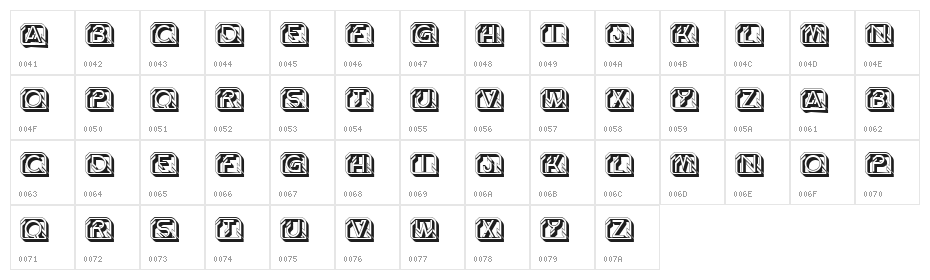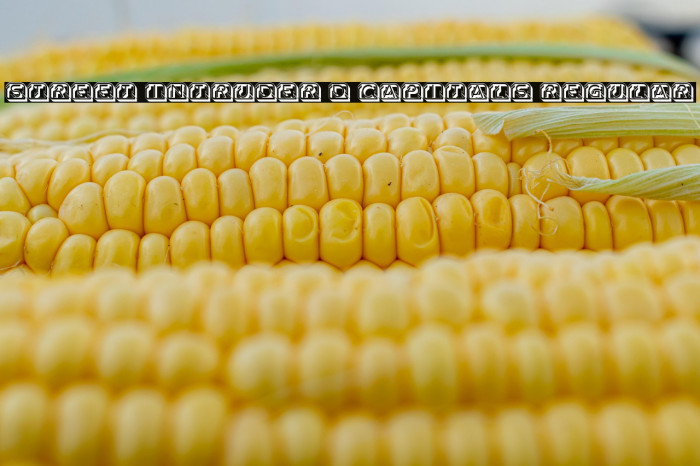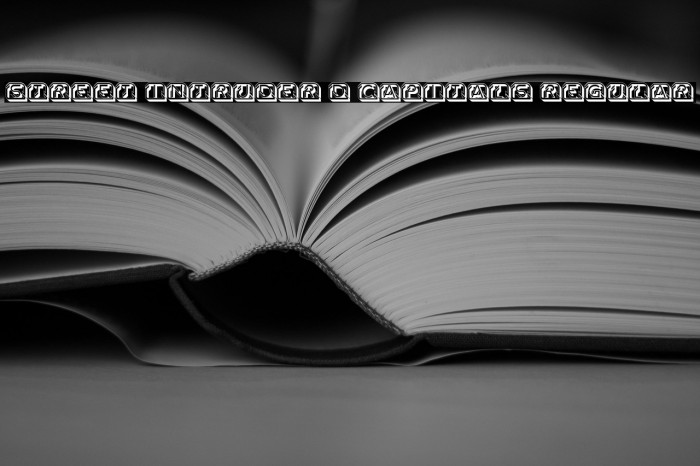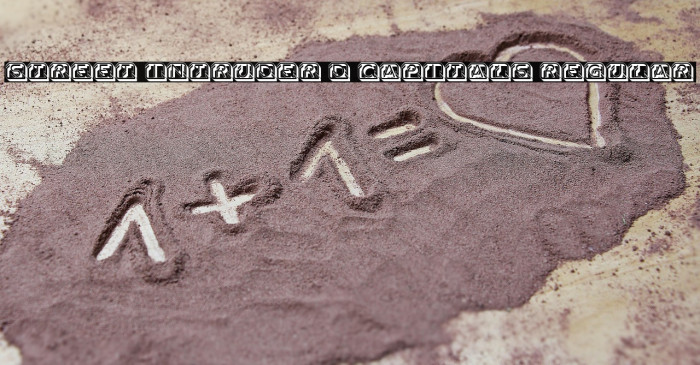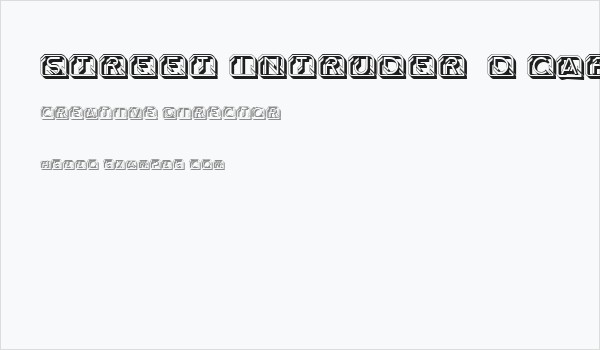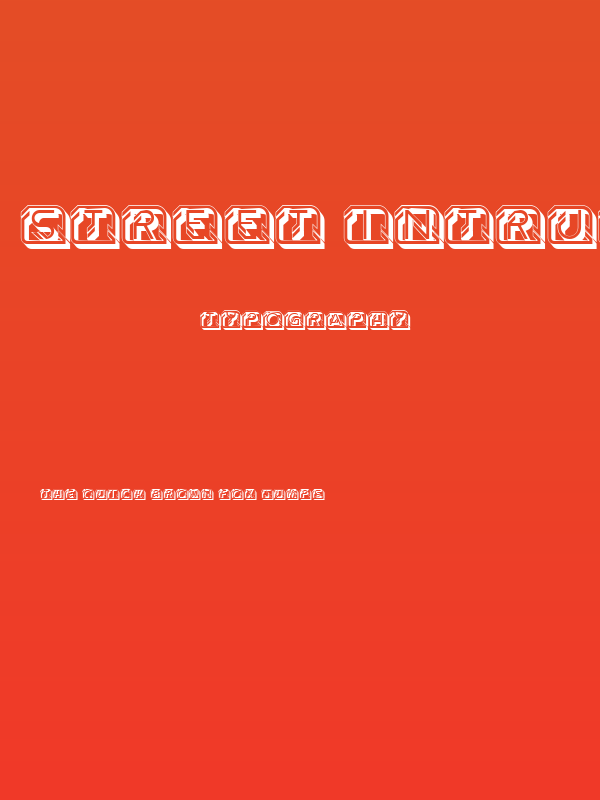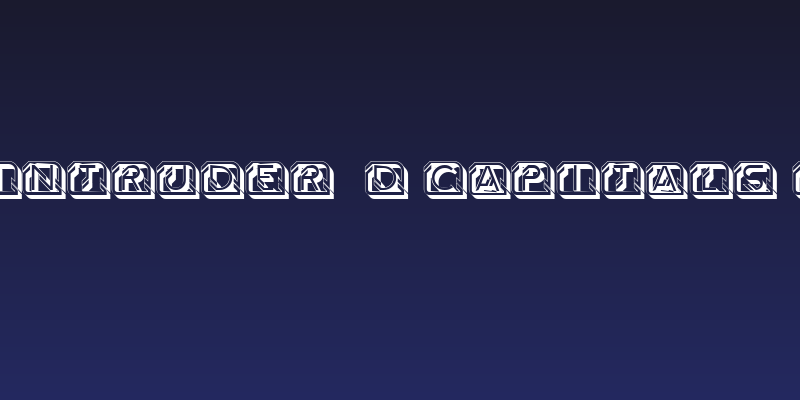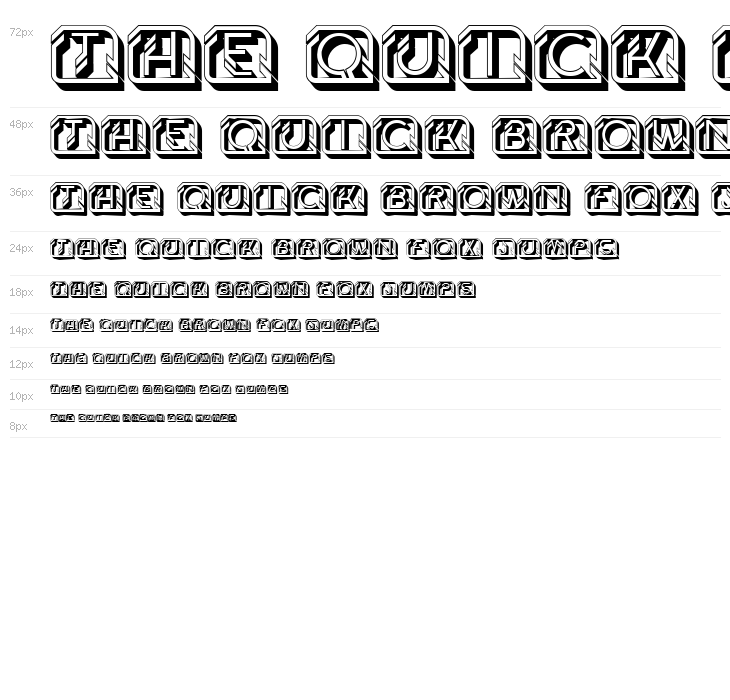
Street Intruder 3D Capitals Regular Font
Street Intruder 3D Capitals Regular Description
This font features a bold, three-dimensional design with a distinct street art influence. Each letter is encased in a blocky, shadowed outline that gives it a striking, embossed appearance. The characters are uppercase only, with a consistent geometric style that emphasizes sharp angles and clean lines. The 3D effect is achieved through a combination of thick outlines and inner detailing, creating a sense of depth and movement. This font is ideal for projects that require a bold, eye-catching aesthetic, such as posters, logos, or any design that aims to make a strong visual impact.
| Proposed Projects | Ideal for posters, logos, street art designs, and any project requiring a bold, impactful visual style. |